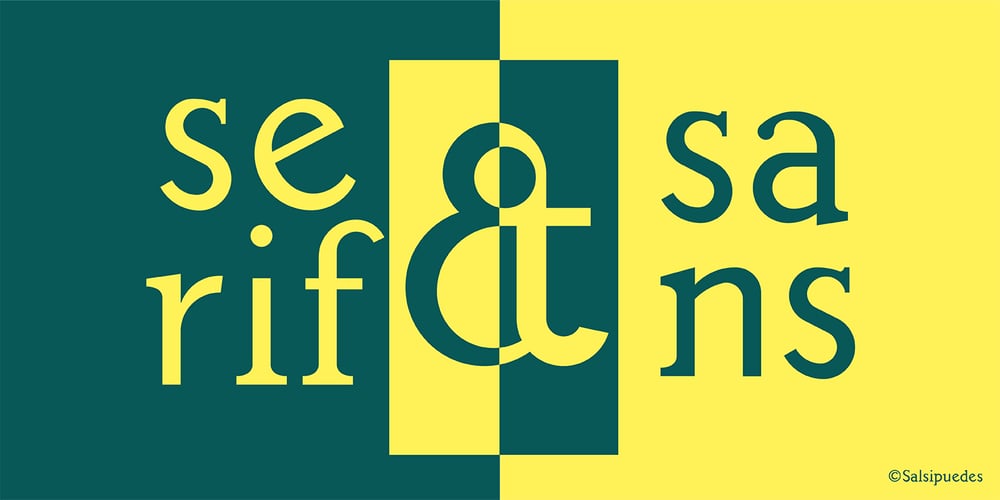
Albollon
Albollon font
Albollon Font Family was designed by Alberto Martínez and published by Salsipuedes. Albollon contains 4 styles and family package options. In the last years our society has change a lot. Nowadays cities and countries are no longer static territories with well-drawn borders and a population perfectly defined. Globalization is a fact and the best consequence of it is the mixture of races, ideas and cultures, and this is exactly what this typography aims to show. Albollón is at once a semi-serif and a semi-sans serif typeface; it is a mixture made with the best parts from both sides. This way is how I understand a healthy society and a healthy design too. Albollón is designed to work in all types of text, both long and shorts, big and small ones.